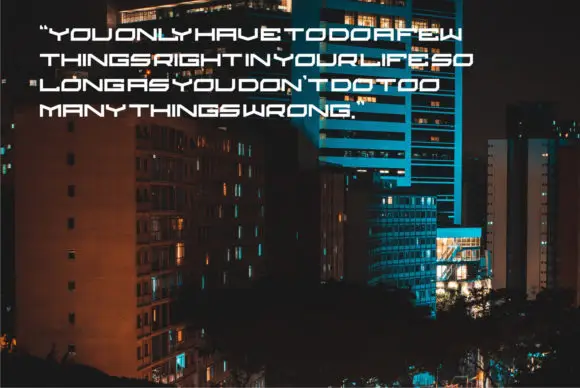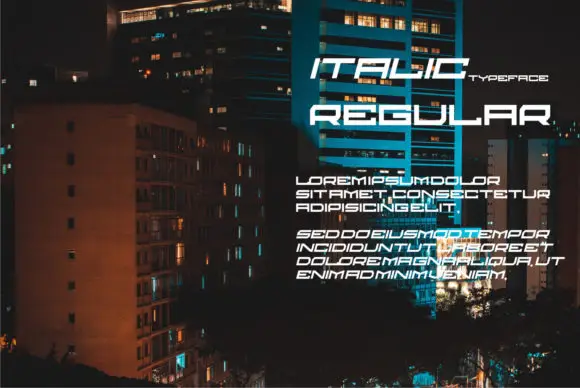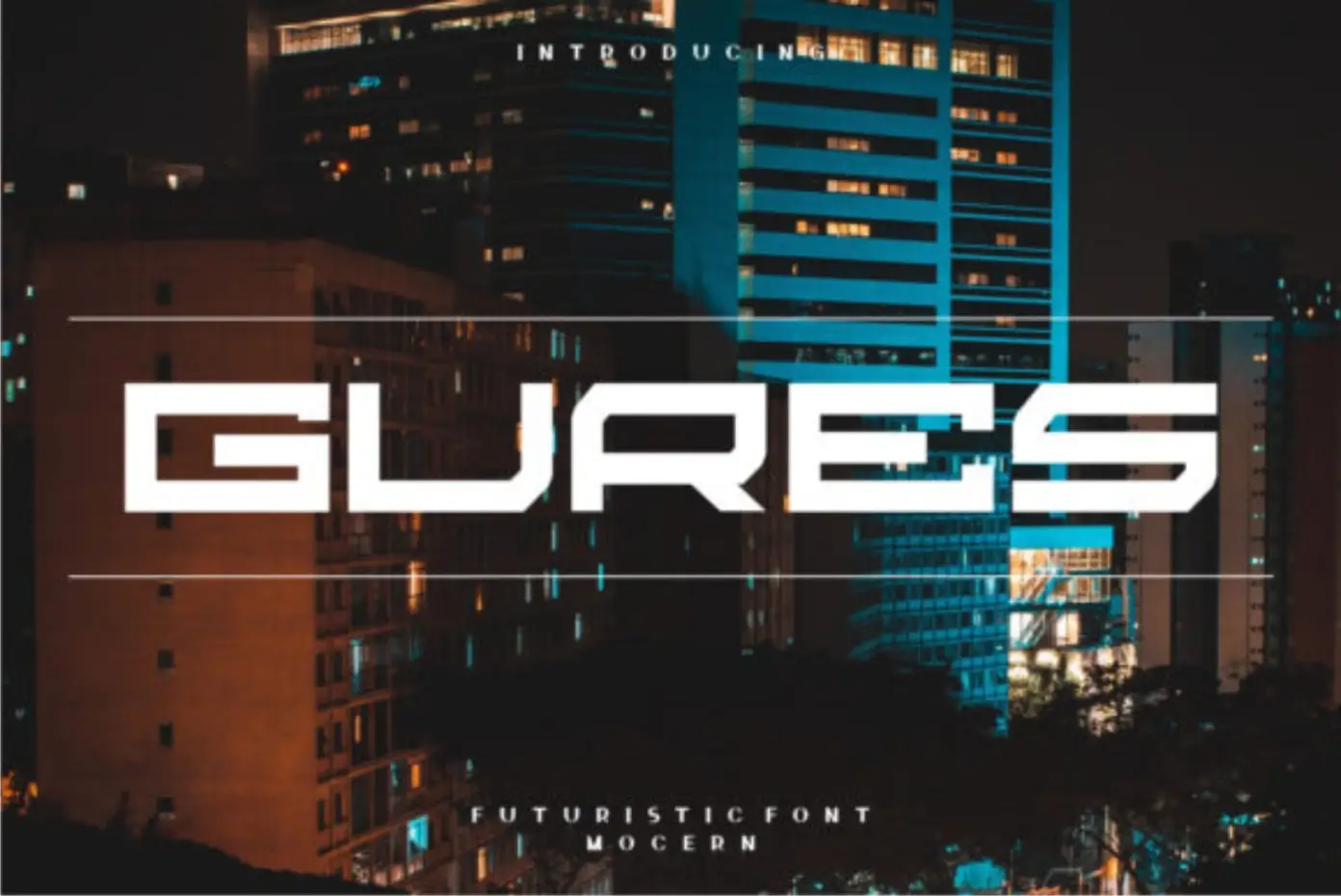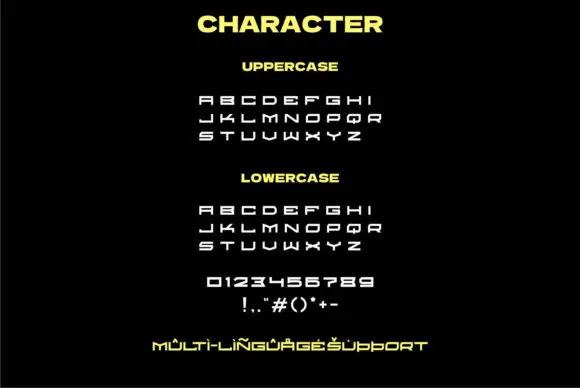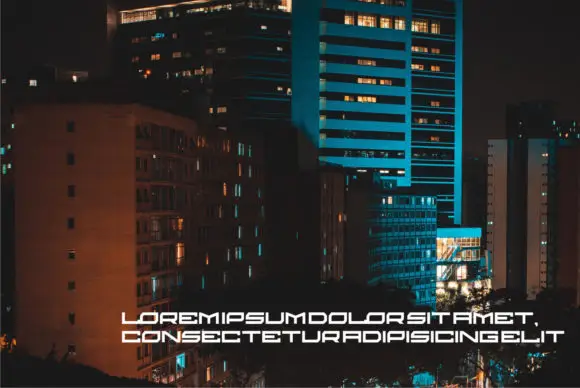
Gures Font
The Gures Font is a versatile typeface designed to elevate your creative projects. With its unique blend of modern and classic styles, this font is perfect for a variety of applications, including branding, logos, web design, print materials, and user interfaces.
• Weights: Light, Regular, Medium, Bold
• For branding projects, use bold weights to create a strong visual identity.
• In web design, opt for lighter weights for body text to enhance readability.
• Combine styles for a dynamic look in promotional materials.